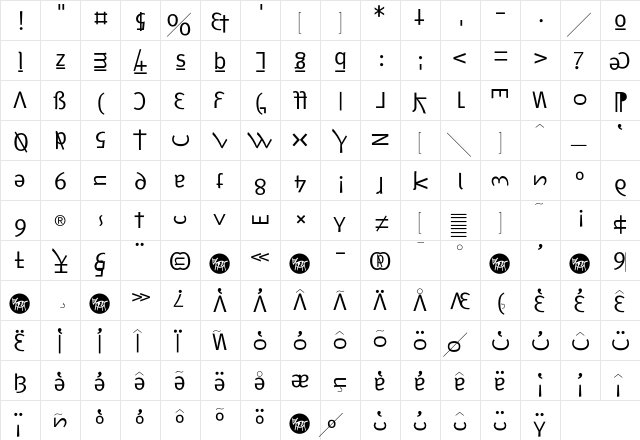
F2FMetamorfosi LT Std Regular
Design Context for F2FMetamorfosi LT Std Typeface
F2FMetamorfosi LT Std is a composed and adaptable typeface that performs quietly and consistently across a wide range of design contexts. The delicate stroke weight brings airiness and refinement to layouts.